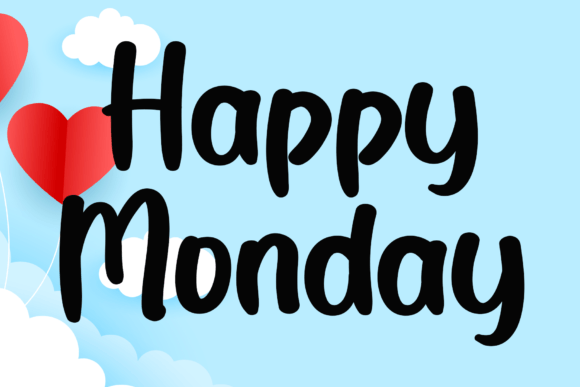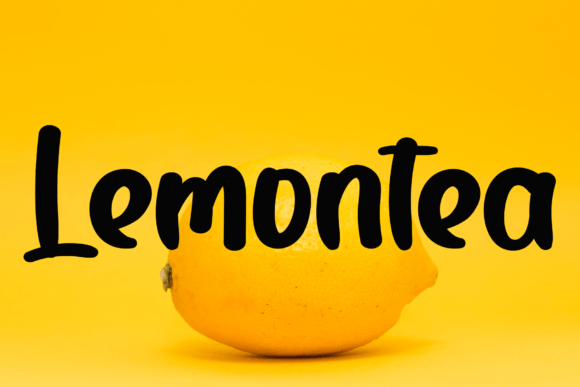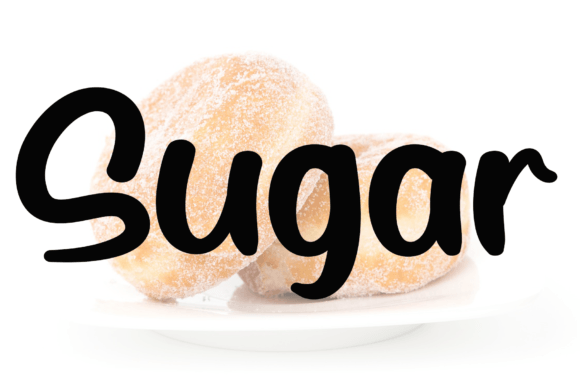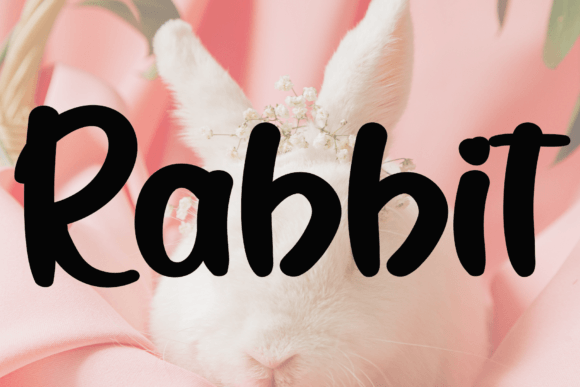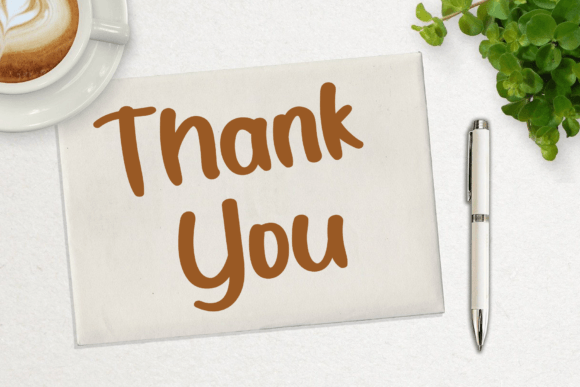
Baby Font: Elevate Your Designs with a Touch of Elegance
In the world of typography, a well-chosen font can make all the difference in elevating your design projects from ordinary to extraordinary. If you’re on the hunt for a font that exudes elegance, sophistication, and a touch of modern flair, look no further than Baby Font. This trendy handwritten font is inspired by timeless classic calligraphy, bringing a contemporary atmosphere and impeccable form to your designs.
The Inspiration Behind Baby Font
Baby Font draws its inspiration from the classic calligraphy of the past, reimagined with a modern twist. The result is a font that is both nostalgic and fresh, perfect for designers and crafters looking to add a touch of vintage charm to their work. With its fluid strokes and carefully crafted letterforms, Baby Font is sure to bring a sense of refinement and poise to any design project.
Key Features of Baby Font
So, what sets Baby Font apart from other fonts on the market? Here are just a few of its key features:
- Trendy and Modern: Baby Font boasts a contemporary atmosphere that is sure to make your designs stand out from the crowd.
- Elegant and Sophisticated: With its classic calligraphy inspiration, Baby Font brings a touch of elegance and refinement to any design project.
- Impeccable Form: Each letterform has been carefully crafted to ensure a high level of legibility and aesthetic appeal.
- Versatile: Baby Font is perfect for a wide range of design projects, from branding and advertising to packaging and digital media.
Uses for Baby Font
Baby Font is an incredibly versatile font that can be used in a variety of design projects. Here are just a few ideas to get you started:
- Branding and Logo Design: Use Baby Font to create a sophisticated and memorable brand identity.
- Wedding and Event Design: Add a touch of elegance to your wedding invitations, programs, and other event materials.
- Packaging Design: Use Baby Font to create eye-catching and refined packaging that stands out on store shelves.
- Digital Media: Incorporate Baby Font into your digital designs, such as social media graphics, blog headers, and email newsletters.
Tips for Using Baby Font Effectively
To get the most out of Baby Font, here are a few tips to keep in mind:
- Pair with Other Fonts: Experiment with pairing Baby Font with other fonts to create a unique and visually appealing typography combination.
- Use in Moderation: While Baby Font is certainly elegant, it’s best used in moderation. Balance it with other design elements to avoid overwhelming the viewer.